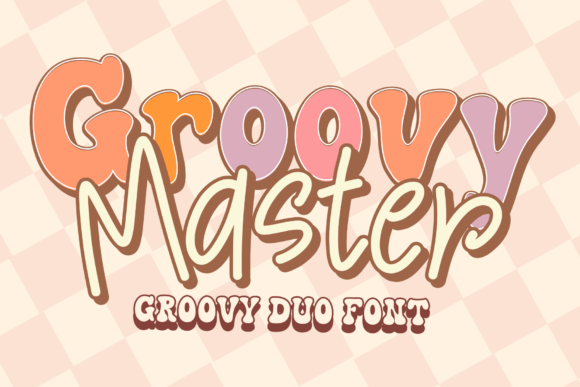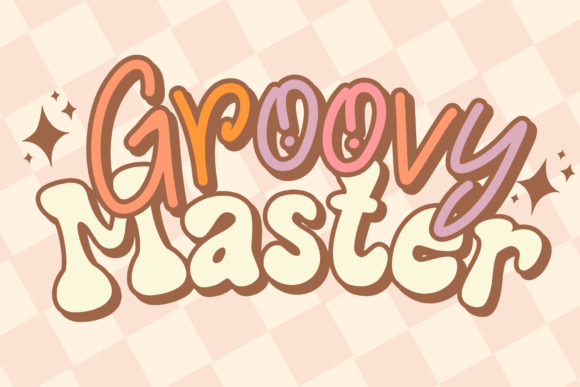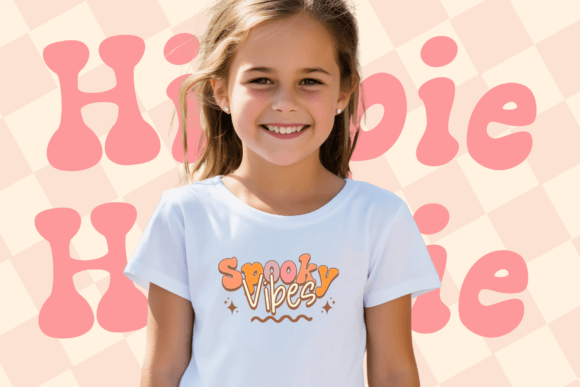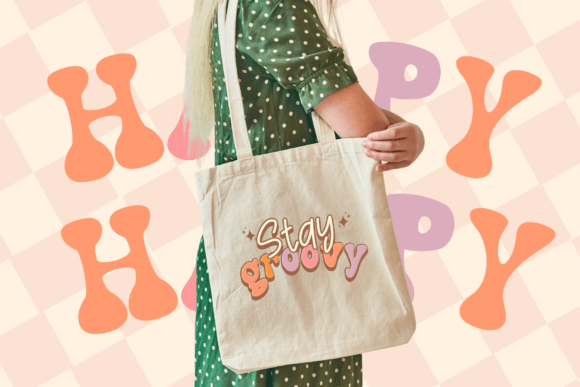
Groovy Master Font: Retro Typography Duo for Playful Branding & DIY Projects
About the Groovy Master Font
The Groovy Master Font offers a perfect balance of form and function for your design needs. Groovy Master is a stylish retro duo font, combining a display and handwritten typeface that exudes a cool and groovy aesthetic. Ideal for all your hippie-inspired designs, It embodies playfulness and authenticity and is the perfect choice for all your favorite projects, or even for blog posts, logos, branding, ads, invitations, greeting cards, planners, photo albums, decorations, and much more. Add it to any of your designs, and enjoy the results!
Groovy Master shines brightest in display applications: headlines, logos, and short-form text for posters or packaging. Its retro style is perfect for projects emphasizing a playful, 70s-inspired aesthetic. However, the handwritten element makes it less suitable for large blocks of body text or UI elements where readability is paramount.
Pairing Groovy Master with a clean sans-serif like Helvetica Neue for body copy maintains visual interest while ensuring readability. Alternatively, a classic serif like Garamond could create a sophisticated contrast, highlighting the font’s retro charm. For a bolder statement, a geometric sans-serif like Futura would complement its bold energy.
The font’s overall personality is undeniably playful and bold, but with an underlying sense of retro cool. It’s a great fit for brands focusing on music, fashion, or lifestyle products that evoke a vintage, fun-loving vibe.